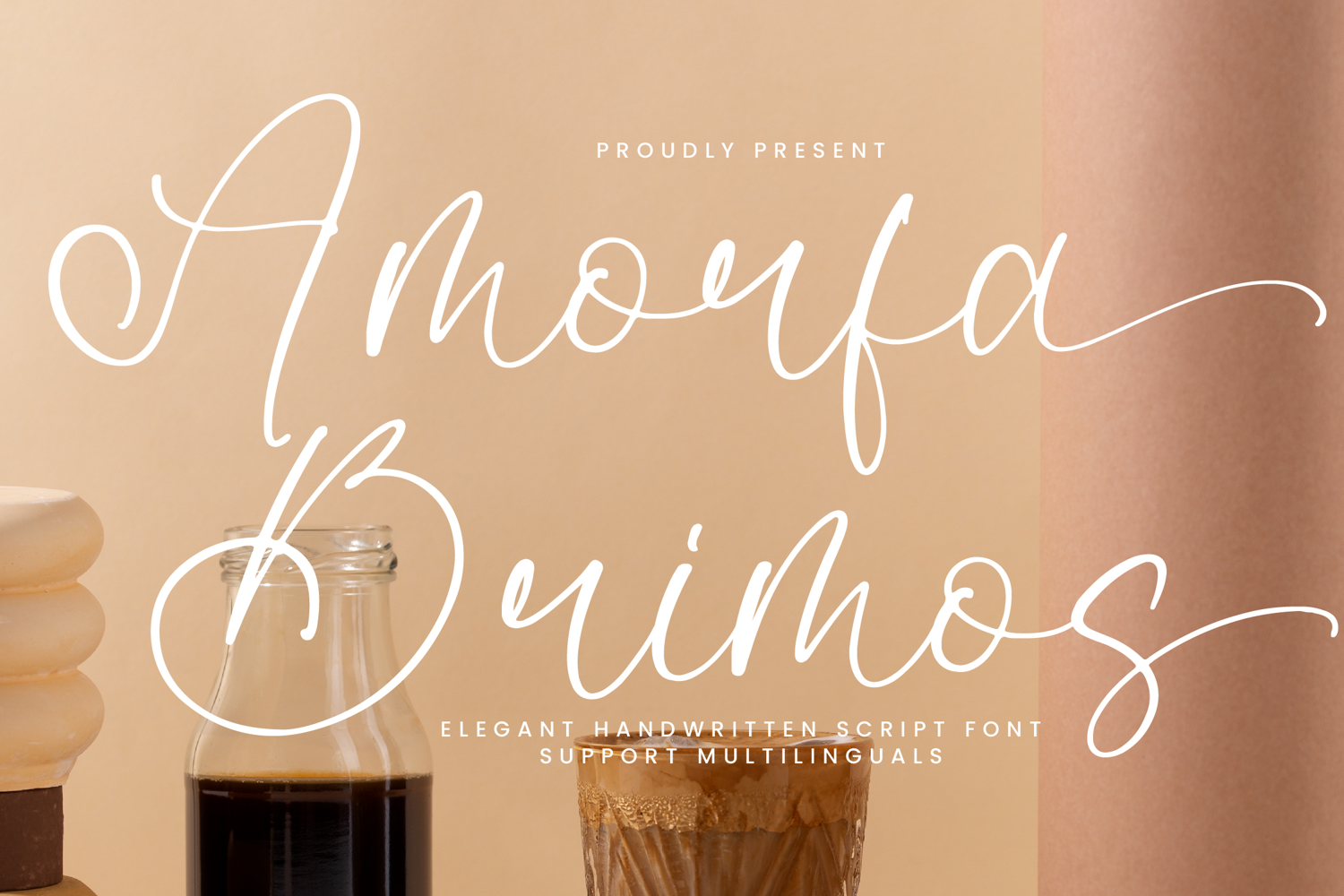
Amorfa Brimos - Elegant Handwritten Script Font
Amorfa Brimos is an elegant handwritten script font that combines sophistication with a touch of creativity, perfect for adding a unique flair to any design project. With its smooth, flowing lines and graceful curves, this font brings a handcrafted aesthetic to invitations, branding, logos, and more. Whether you're working on a wedding design or looking to enhance your branding with a premium feel, Amorfa Brimos offers versatility and charm that stands out. Don't miss out—bring your projects to life with the refined elegance of Amorfa Brimos today!
Ligatures, Alternate & Swashes
The font includes support for 65 languages; Afrikaans, Albanian, Asu, Basque, Bemba, Bena, Breton, Catalan, Chiga, Cornish, Danish, Dutch, English, Faroese, Filipino, French, Friulian, Galician, German, Gusii, Indonesian, Irish, Italian, Kabuverdianu, Kalenjin, Kinyarwanda, Luo, Luxembourg, Luyia, Machame, Makhuwa-Meetto, Makonde, Malagasy, Manx, Morisyen, North Ndebele, Norwegian Bokmål, Nynorsk Norwegian, Nyankole, Oromo, Portuguese, Quechua, Romansh, Rombo, Rundi, Rwa, Samburu, Sango , Sangu, Scottish Gaelic, Sena, Shambala, Shona, Soga, Somali, Spanish, Swahili, Swedish, Swiss, German, Taita, Teso, Uzbek (Latin), Volapük, Vunjo, Zulu